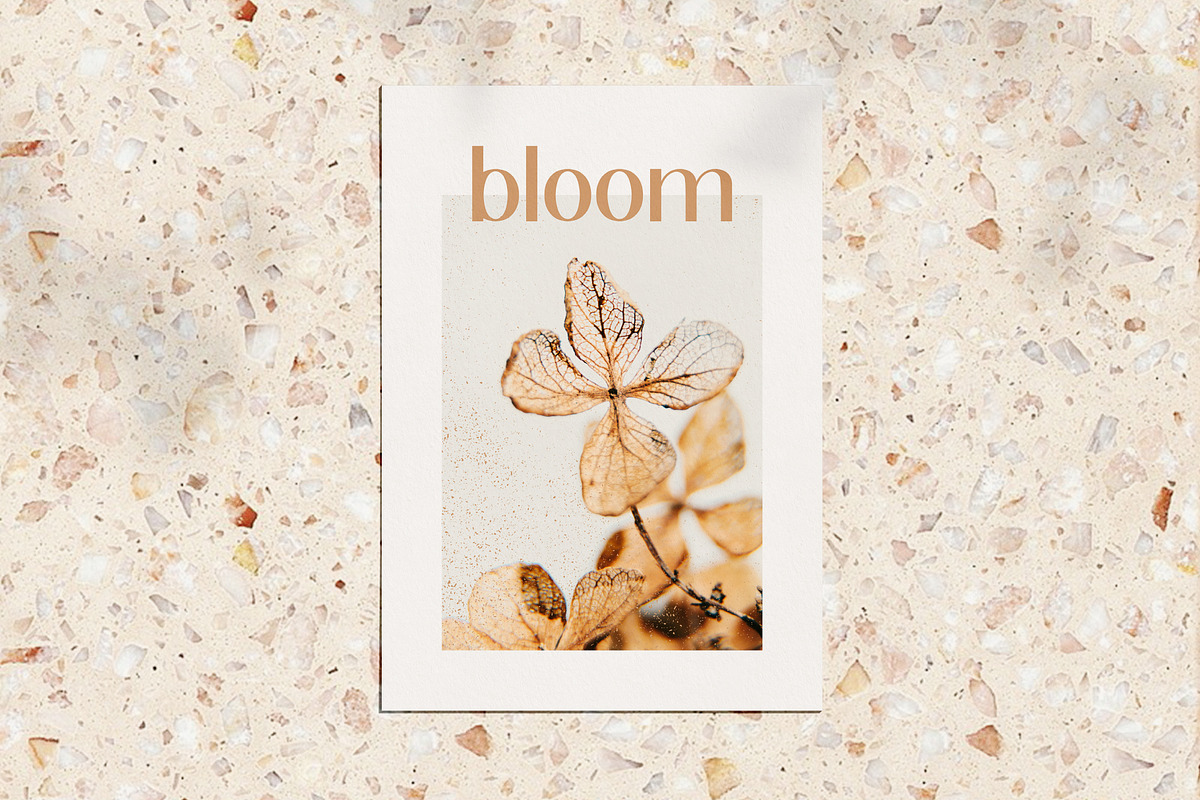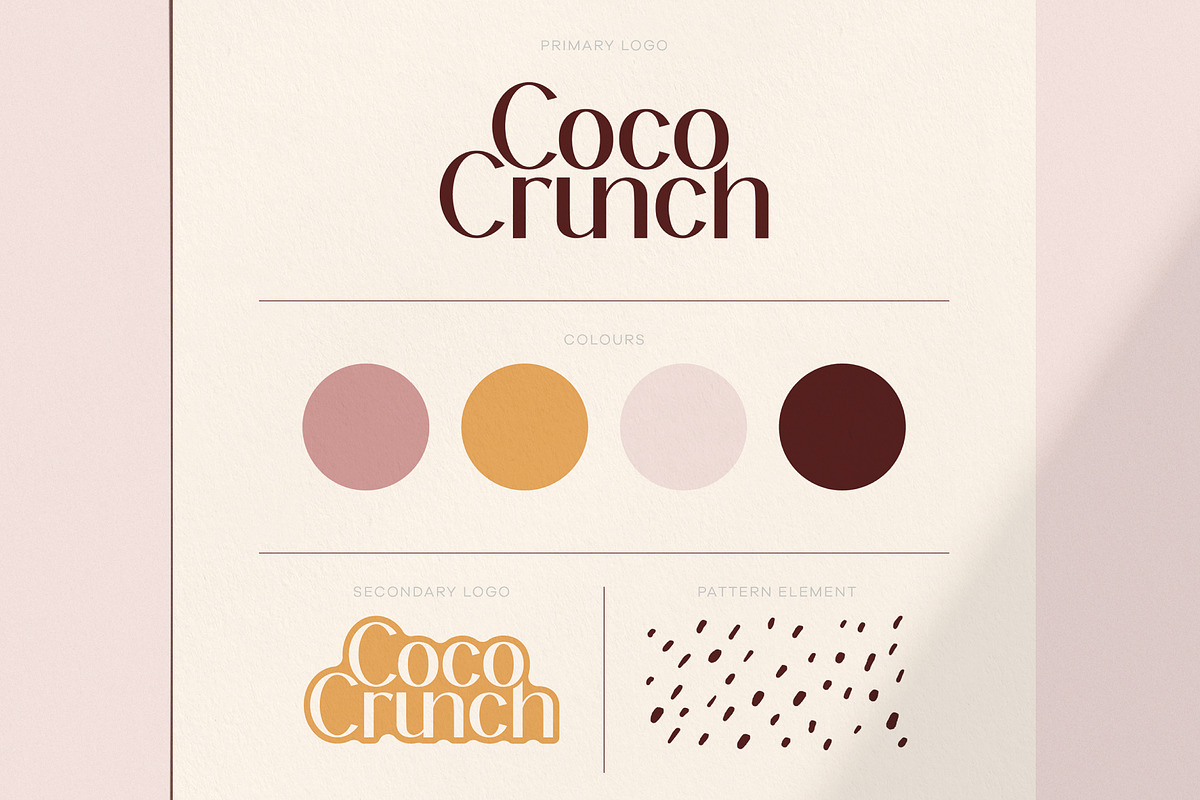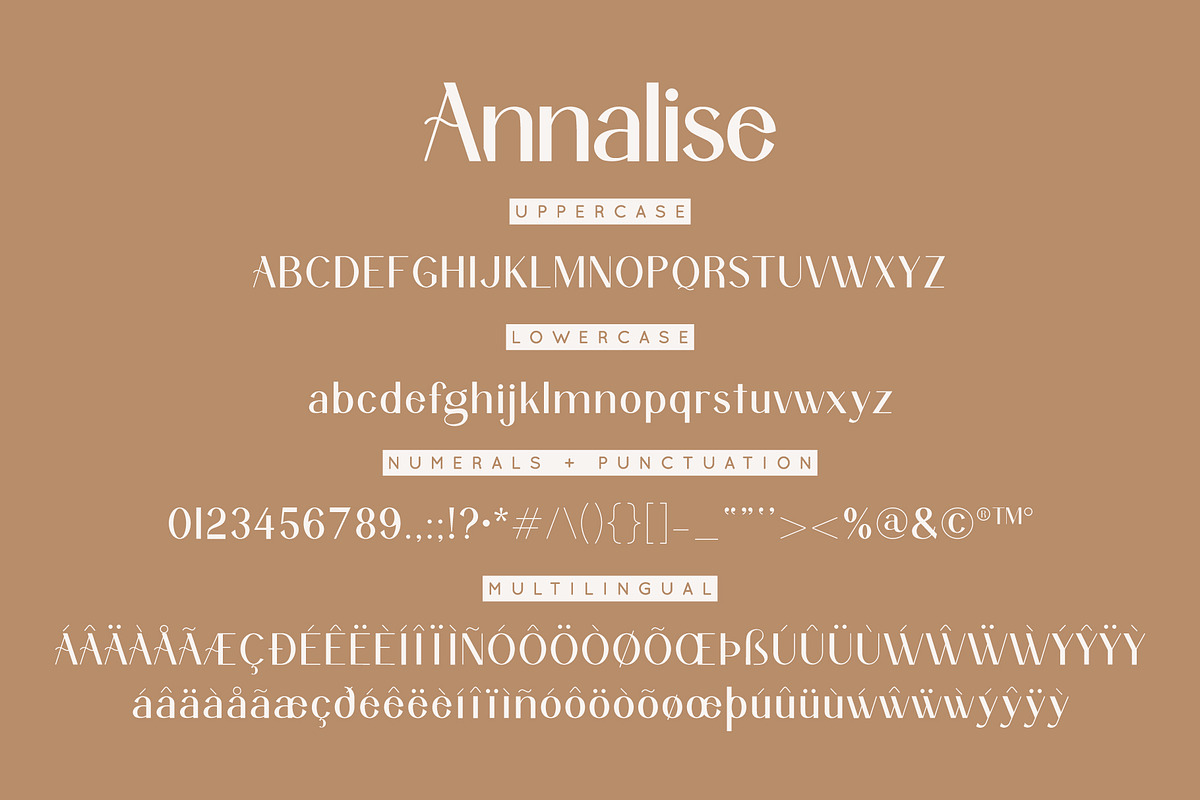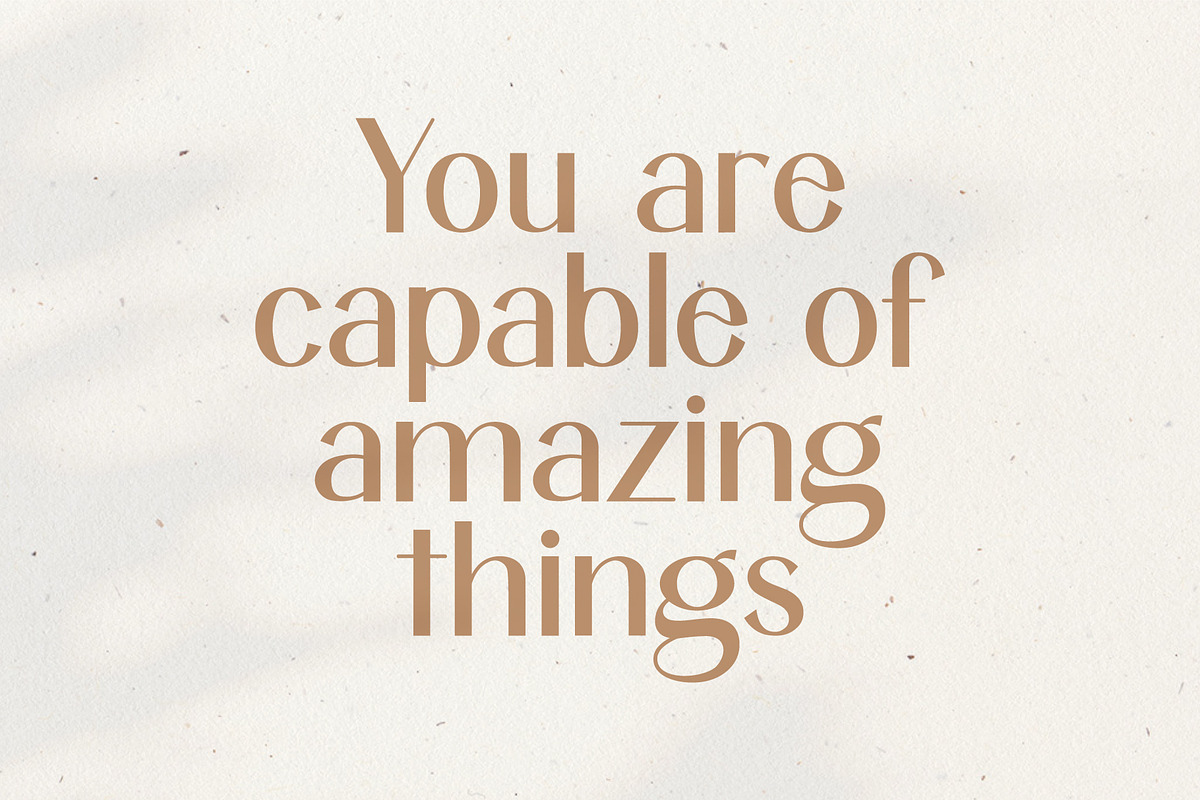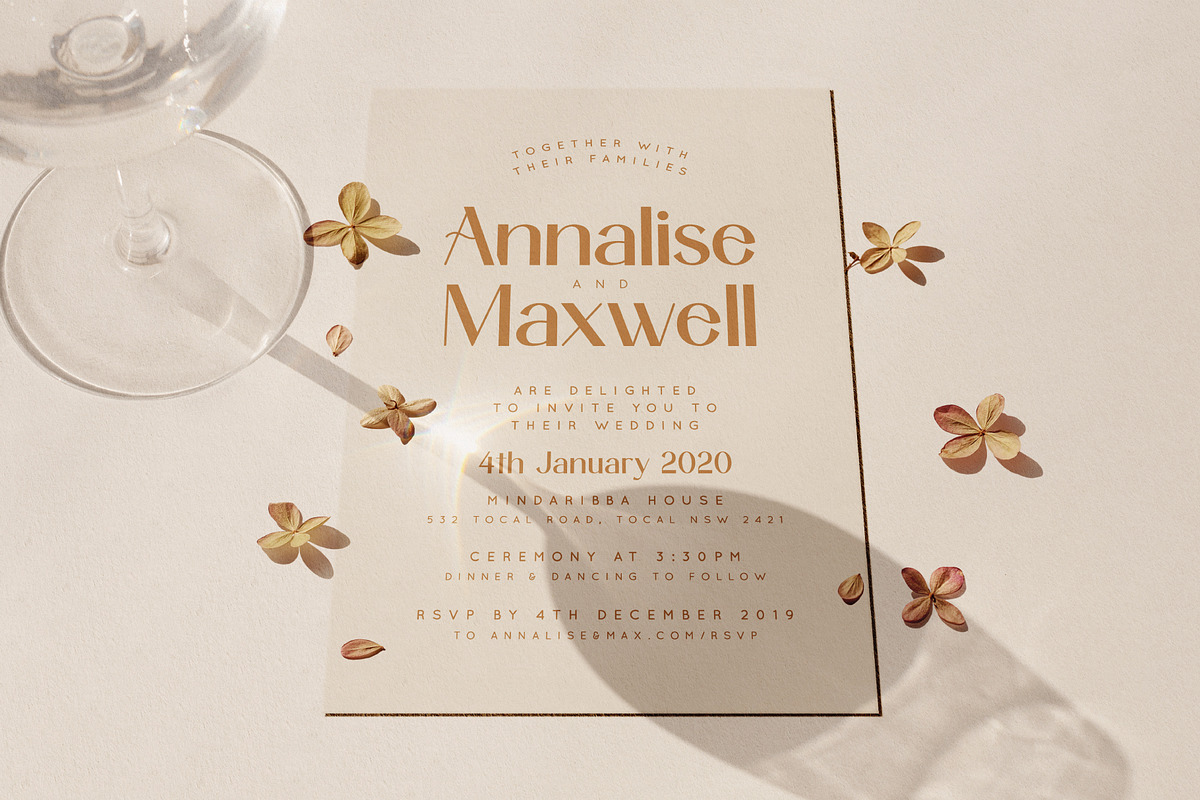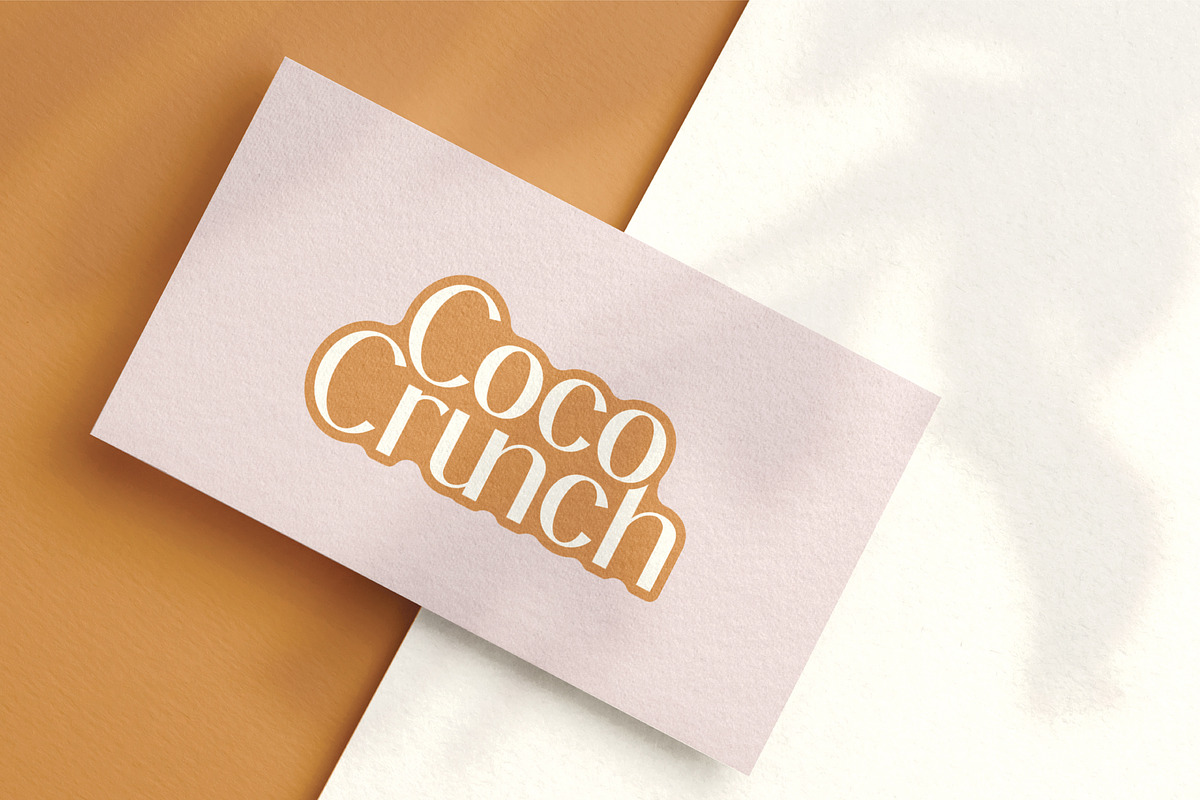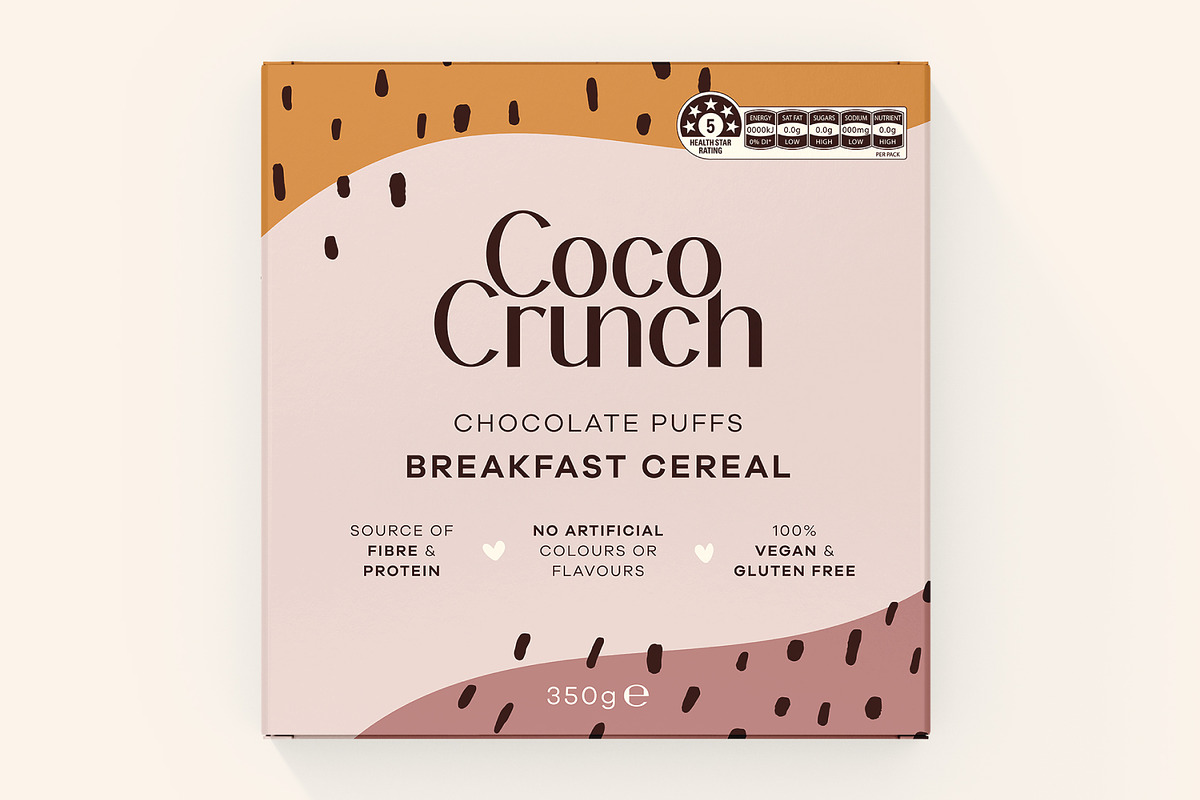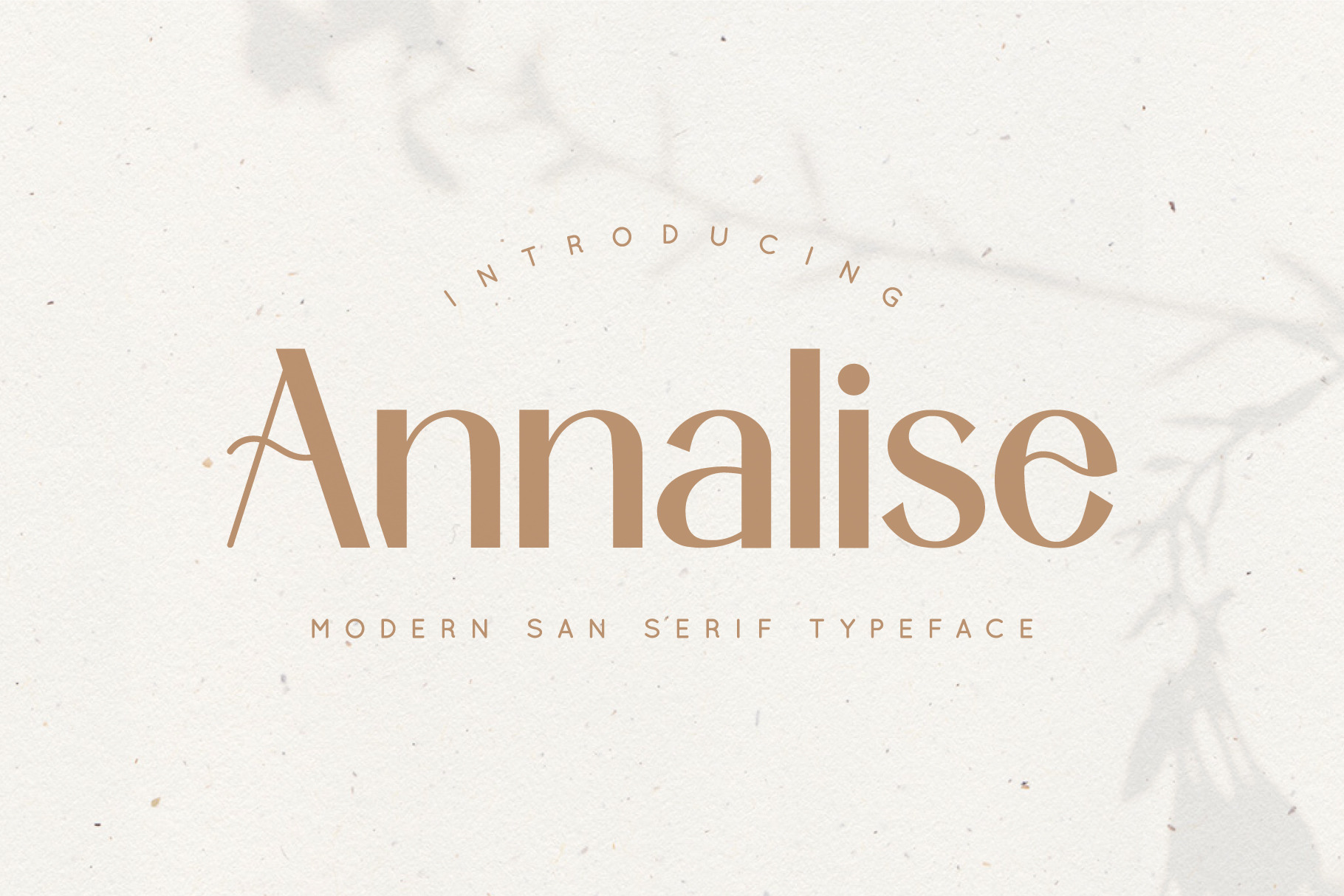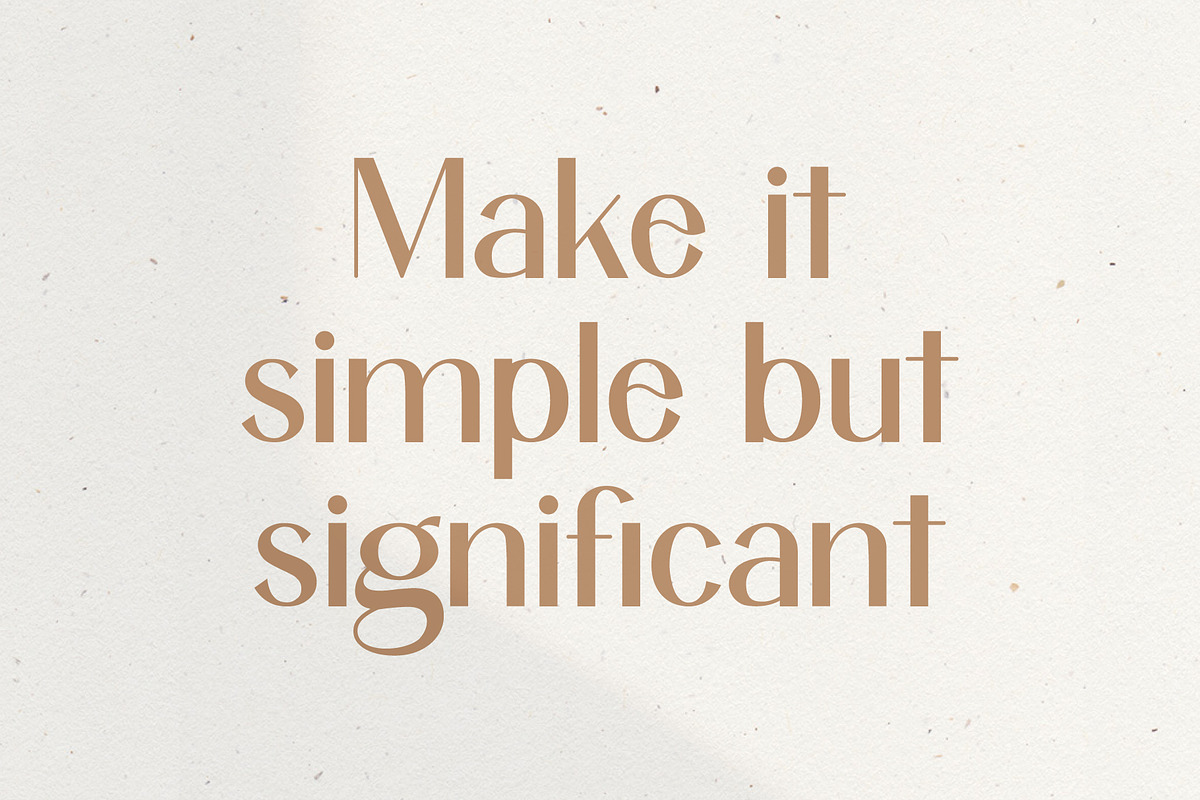
Annalise | San Serif Font
Introducing Annalise! A modern san serif font that works perfectly for logos, branding, and web headings.
Annalise contains multilingual support with accented characters for international (Western European, Central European and South Eastern European) users.